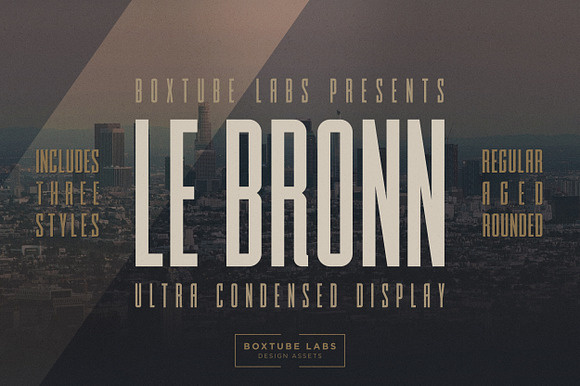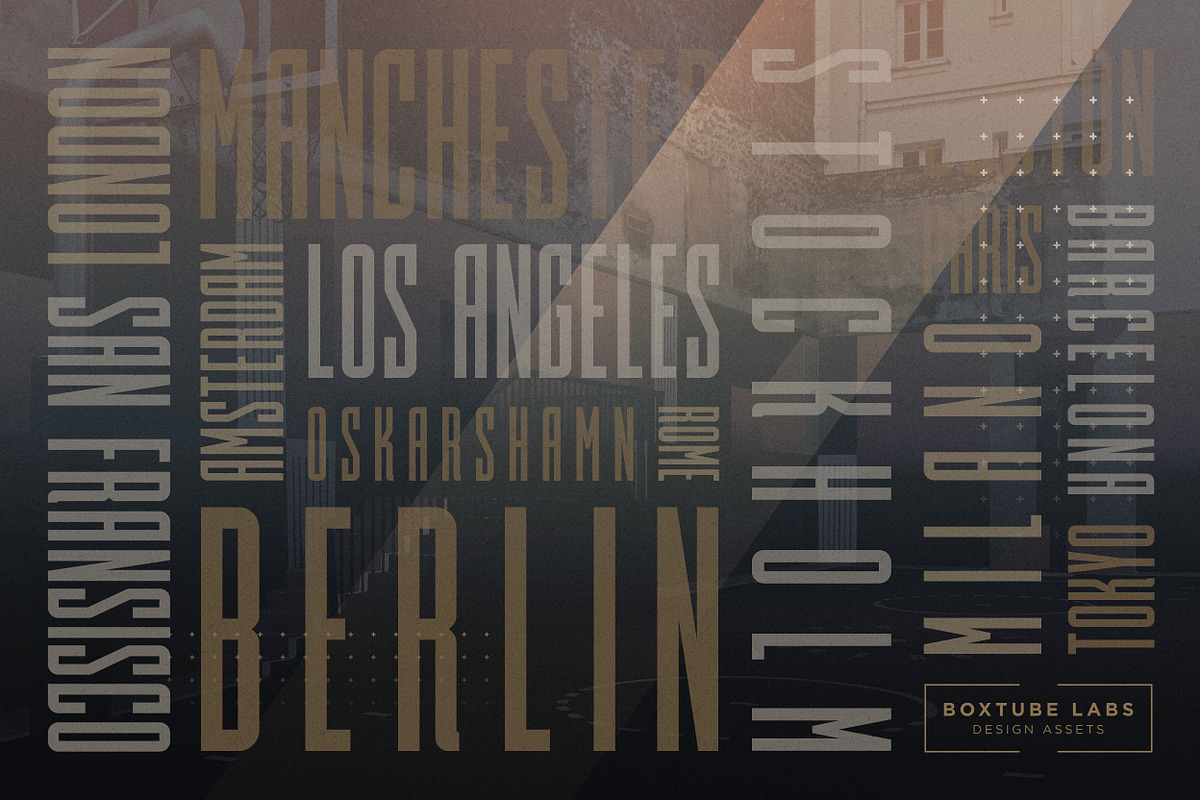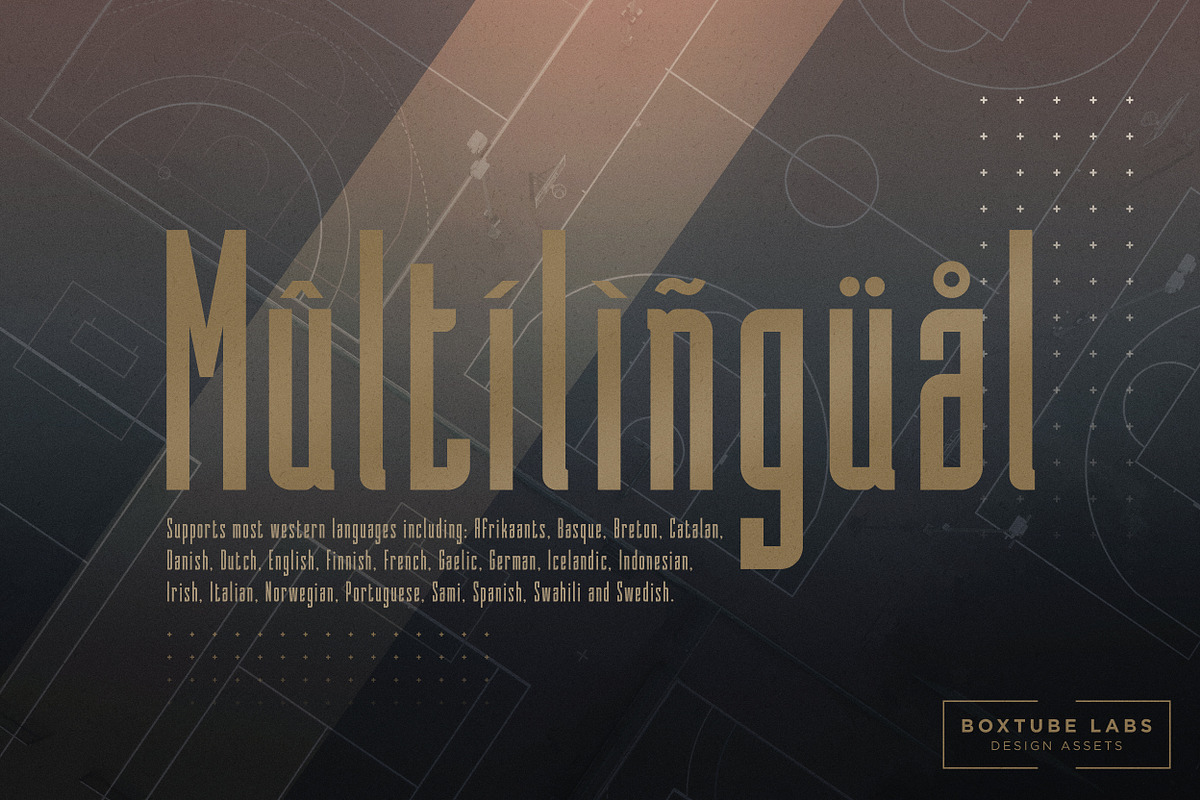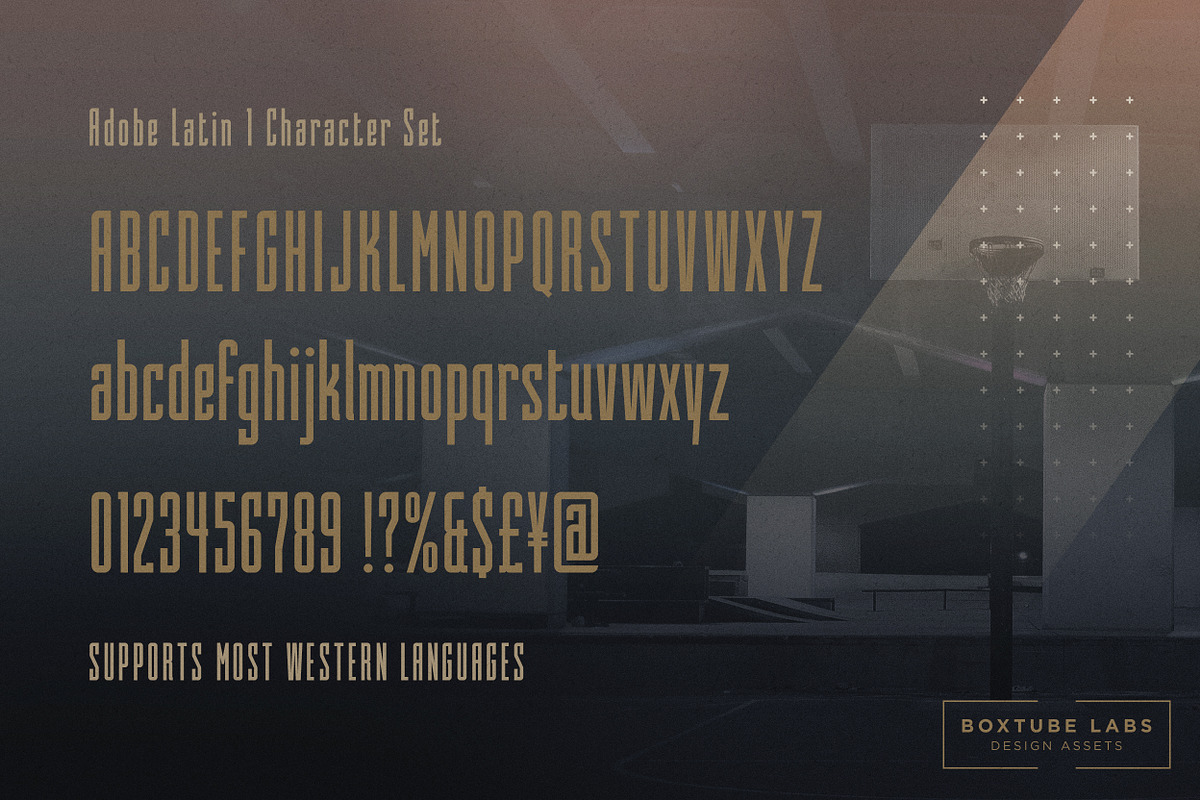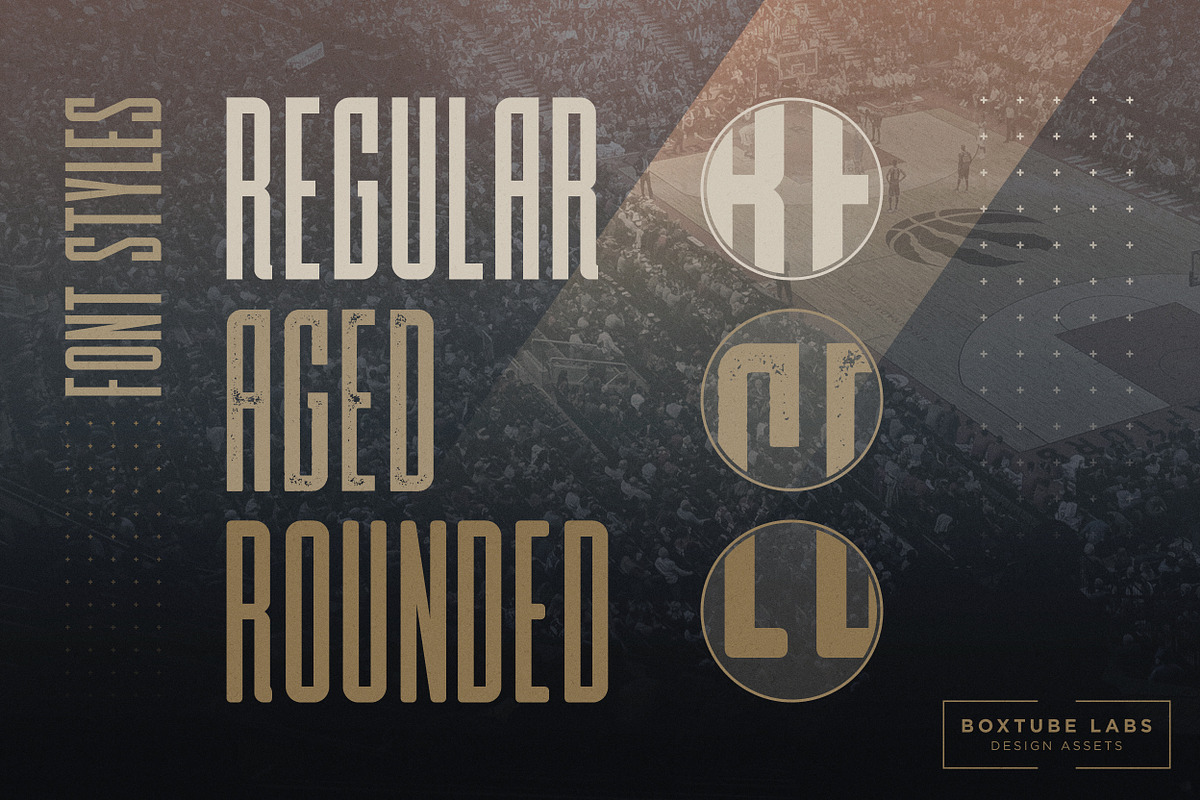
Le Bronn - Display Font
BoxTube Labs presents LE BRONN - an ultra condensed display font
Le Bronn is our most condensed font family to date and it contains three styles; Regular, Aged & Rounded. It's perfect for strong & bold social media content, logotypes, sports branding, posters, apparel design, magazine headlines, labels and so much more.
Le Bronn features a full Adobe Latin 1 character set, with support for most western languages including: Afrikaants, Basque, Breton, Catalan, Danish, Dutch, English, Finnish, French, Gaelic, German, Icelandic, Indonesian, Irish, Italian, Norwegian, Portuguese, Sami, Spanish, Swahili and Swedish.